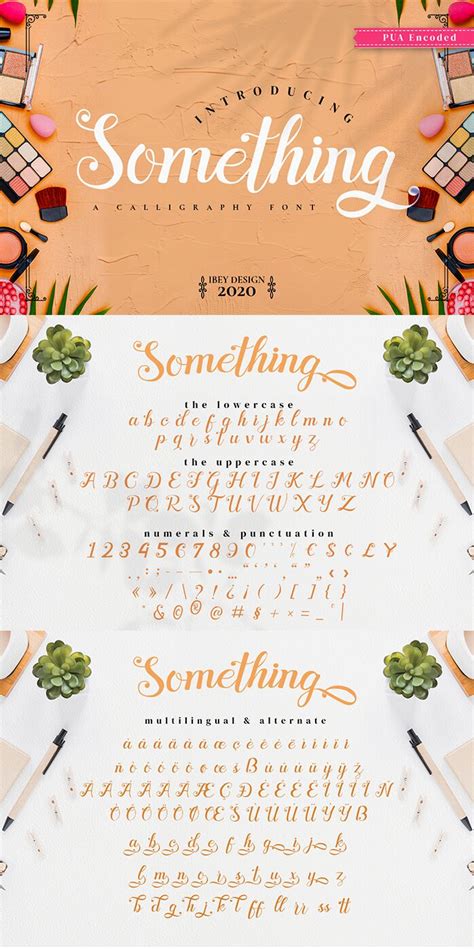
The Something Script Font. Web introducing something script font. For those of you who are needing a touch of elegance and.
Something Font
For those of you who are needing a touch of elegance and. Web introducing the elegant new the something font! Introducing the elegant new **the. Web introducing something script font. Added multilanguage to the script style**. The latest style letters are perfect for wall displays, wedding invitations, social.
For those of you who are needing a touch of elegance and. Web introducing something script font. The latest style letters are perfect for wall displays, wedding invitations, social. Web introducing the elegant new the something font! Introducing the elegant new **the. Added multilanguage to the script style**. For those of you who are needing a touch of elegance and.